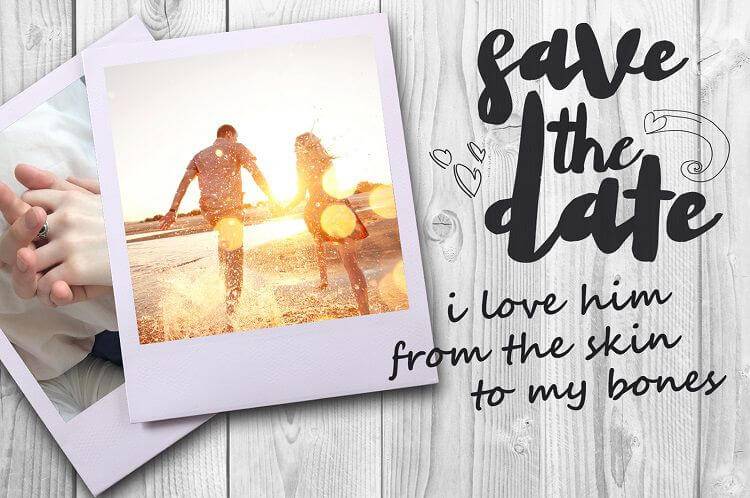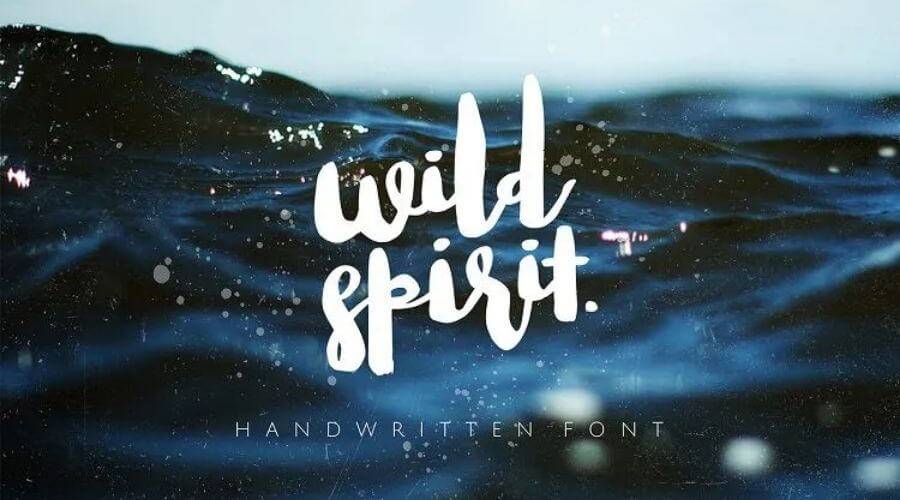
Wild Spirit
Introducing Wild Spirit! A carefree and untamed script and brush font with a herbal float. Handmade with lengthy natural strokes, Wild Spirit is not held lower back via way of means of any obstacles or expectations. Wild Spirit consists of units of every character, and 25 ligatures (double letters) – which mixed gives you a wide variety of customisability and format options and permits you to provide a completely natural and herbal handwritten float for your textual content.
The sharp curves of this brush font make it ideal for the usage of any ambitious texture venture consisting of subheadings or headings. It’s the right desire for private branding projects, handwritten quotes, homeware designs, product packaging – or honestly as a modern & fashionable textual content overlay to any heritage image.
| Style | Script |
| Designer | Set Sail Studios |